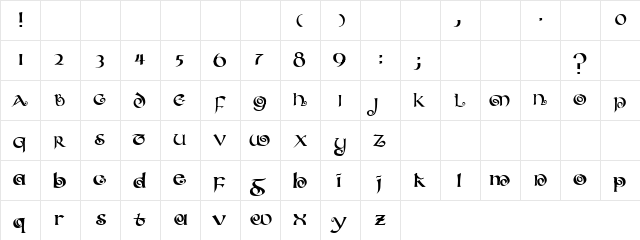
Astra Sine Regular
Design Context for Astra Sine Typeface
Astra Sine is a composed and adaptable typeface that performs quietly and consistently across a wide range of design contexts.